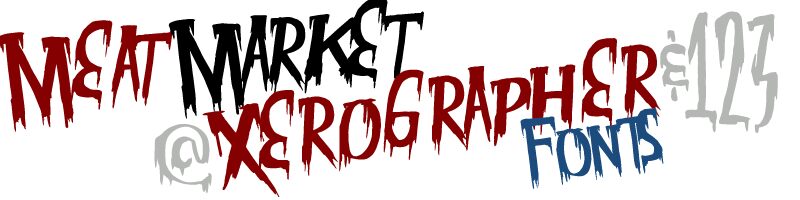
MeatMarket by Xerographer Fonts is a free scary display font with towering, uneven capitals and a raw horror-film edge. Its strokes shift abruptly from broad slabs to thin scratches, ending in ragged points that resemble torn paper, claw marks, and dripping paint.
That distressed silhouette connects easily with splattered illustrations and shadowy photography on haunted-attraction posters, metal merchandise, and Halloween event graphics, where the letters can become part of the grime and gore. It also gives horror magazine covers a suitably vicious masthead.